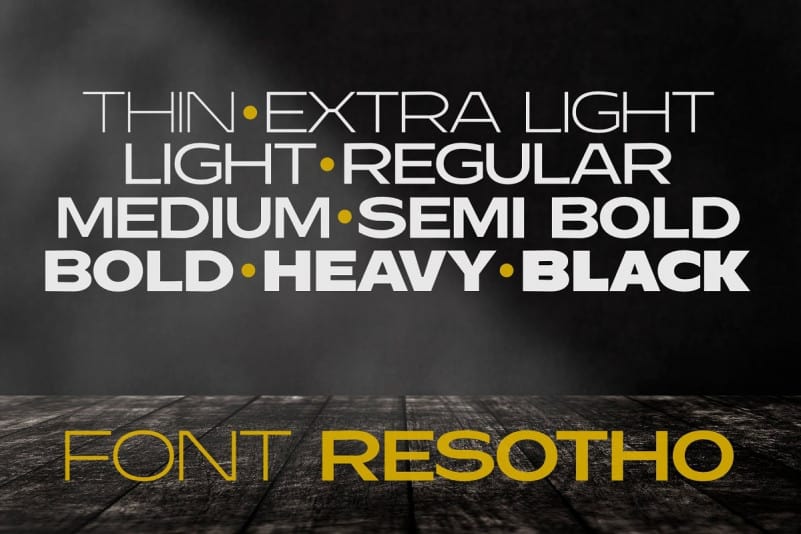
Resotho Sans Serif Font
Introducing Resotho Extralight Font, an innovative sans serif typeface family. Resotho Extralight Fontis legible, objective and authoritative, eco-friendly and innovative businesses. Resotho Extralighthas a neat, clean appearance with simple, smooth curves and a modern look.
Despite its simplistic features Resotho Extralightstill has a strong personality and distinctive characteristics. With a high X height, large counters, high contrast between vertical and horizontal lines and narrow strokes, this typeface is powerful whether paired with a contrasting font or on its own.